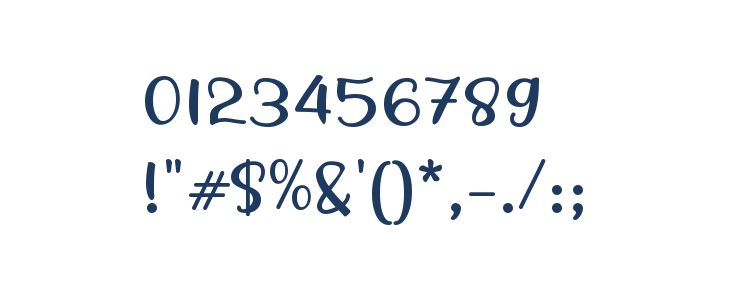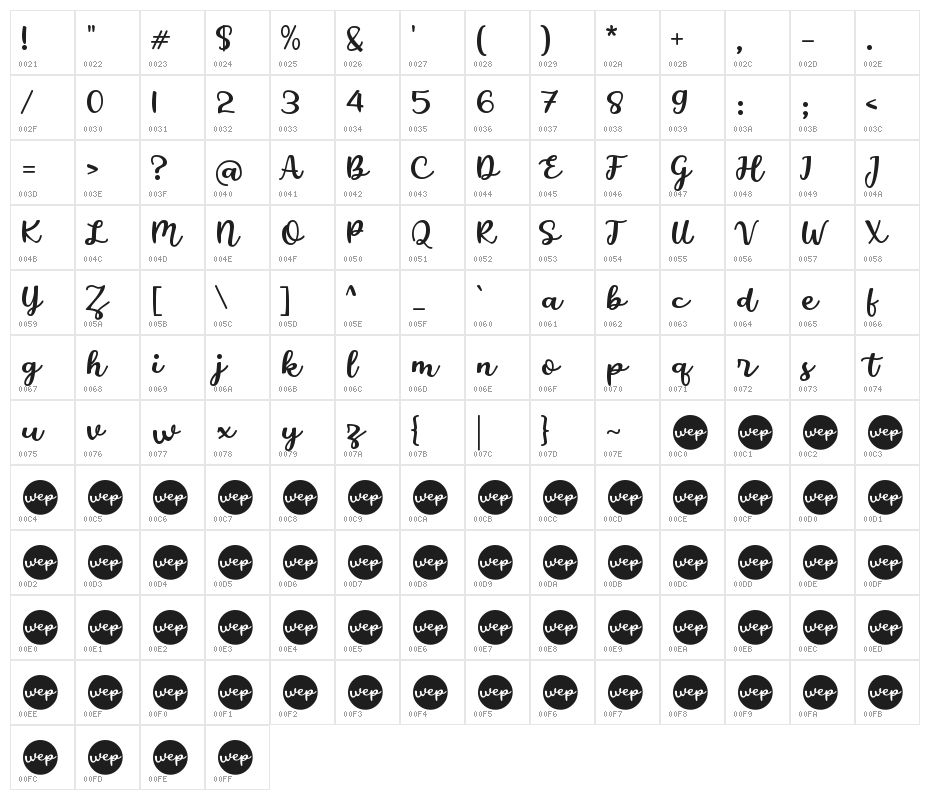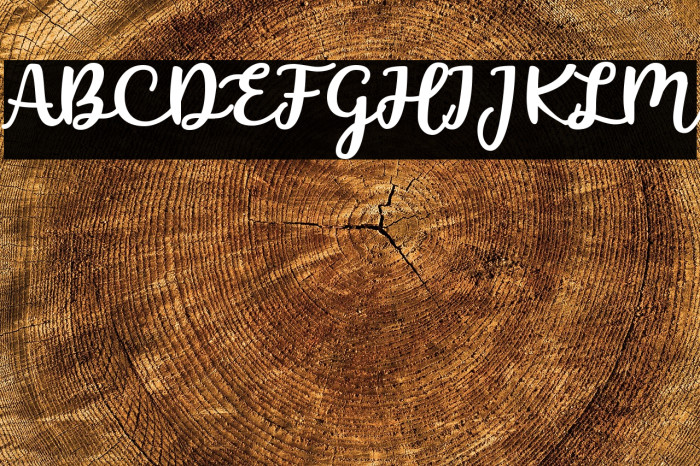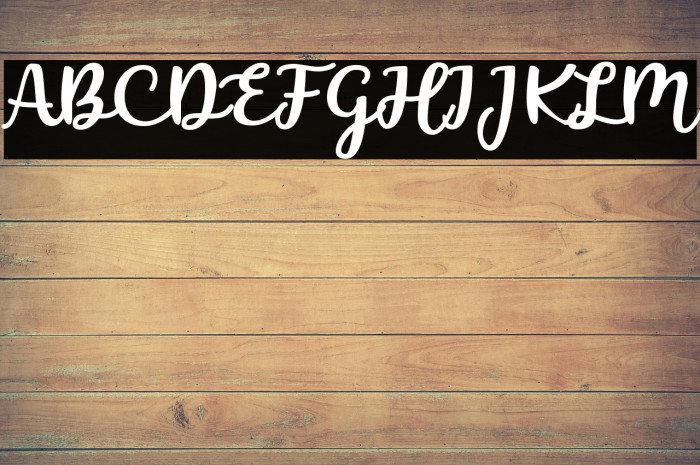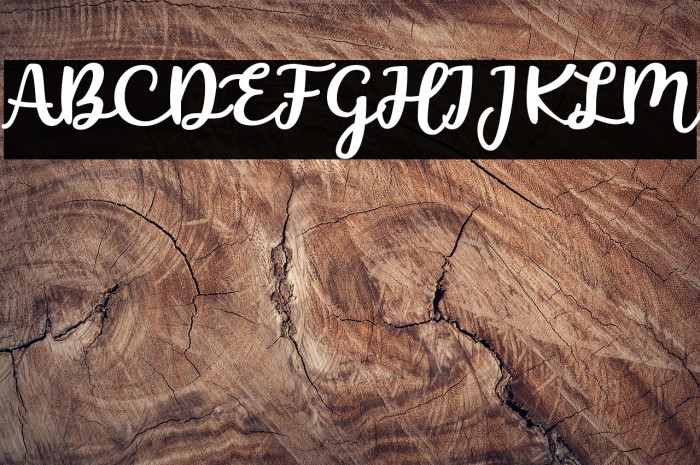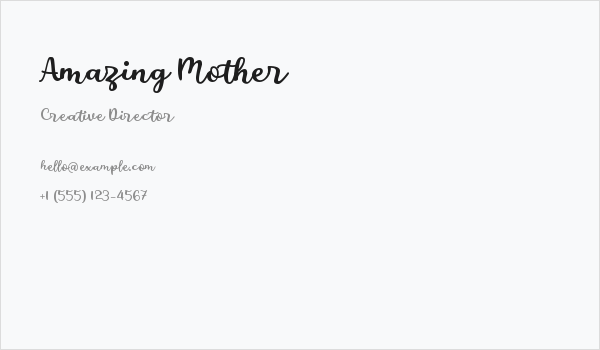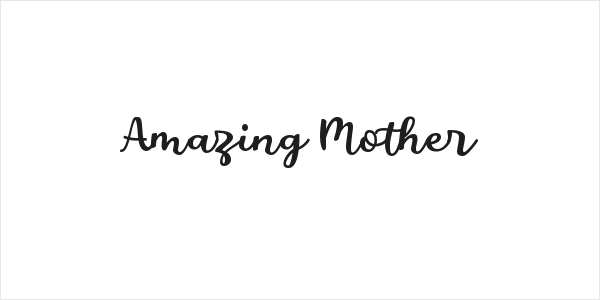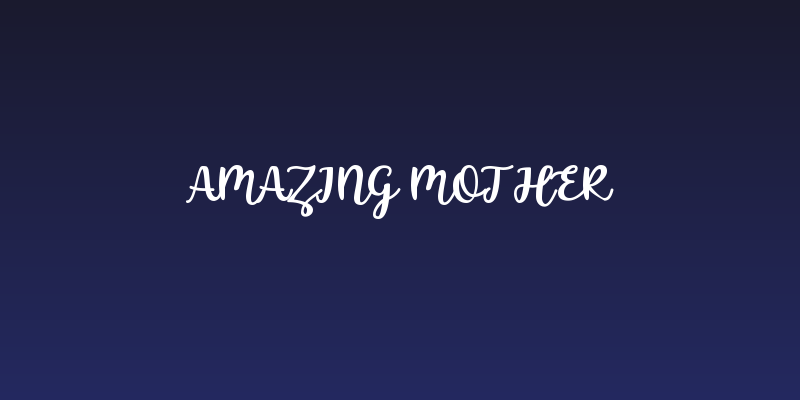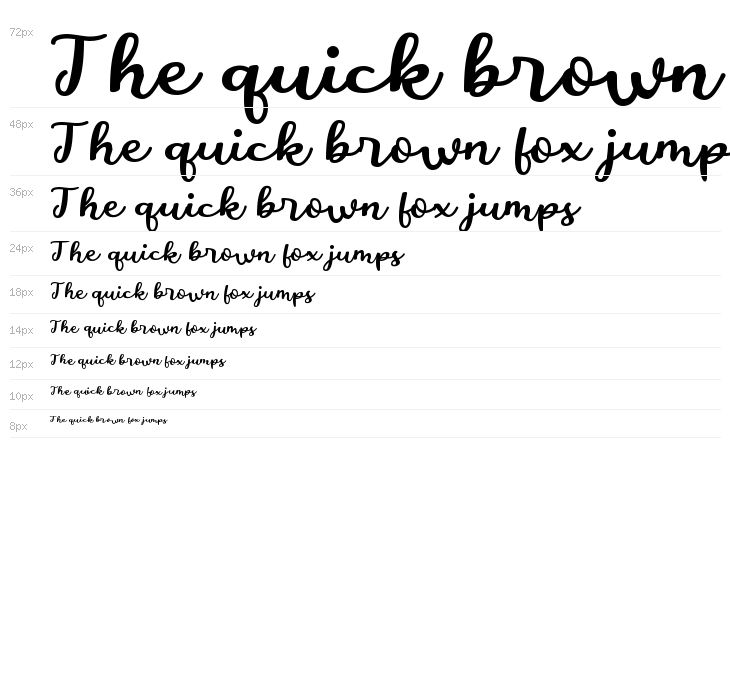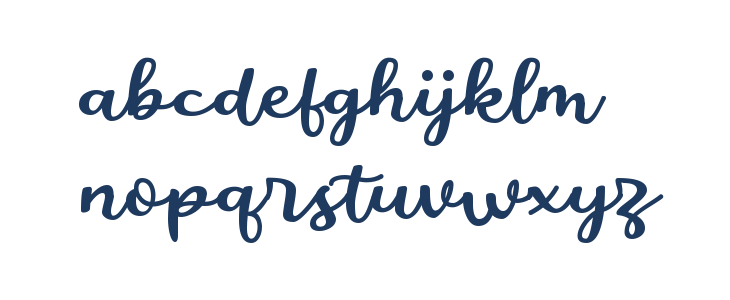
Amazing Mother Font
Amazing Mother Description
This font features a lively and flowing script style, characterized by its smooth, cursive strokes and playful loops. The uppercase letters are bold and confident, with a slight slant that adds to their dynamic appearance. The lowercase letters maintain a consistent flow, connecting seamlessly in a way that mimics natural handwriting. The numerals are rounded and maintain the same energetic style, making them easily legible. Special characters are creatively integrated, maintaining the font's overall whimsical and friendly aesthetic. This font is perfect for projects that require a personal touch, such as invitations, greeting cards, or branding materials that aim to convey warmth and approachability.
| Proposed Projects | Ideal for invitations, greeting cards, branding materials, and any project needing a personal touch. |